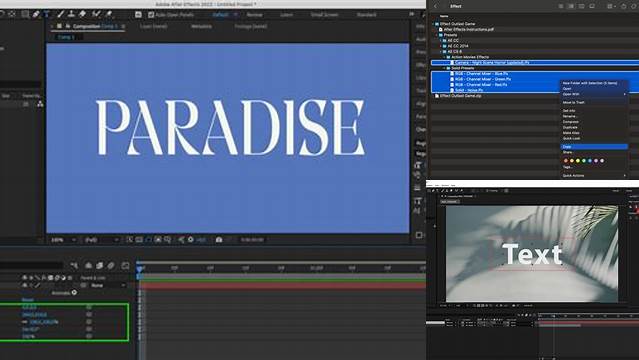
Install Fonts In After Effects: A Simple Guide
Hey guys! Ever downloaded a cool font and wanted to use it in After Effects? It's actually super easy, and this guide will walk you through it step by step. We'll cover everything from finding fonts to getting them up and running in After Effects so you can create awesome motion graphics and animations. So, let's dive in!
1. Finding the Perfect Font for After Effects
Choosing the right font is crucial for your After Effects projects. The perfect font can make your text look professional and polished, and it can also help to convey the mood and tone of your video. There are tons of places to find fonts online, both free and paid, so you've got a lot of options. Websites like Google Fonts, DaFont, and Adobe Fonts are great resources. When searching, think about the style you're going for. A bold, sans-serif font might be perfect for a modern, techy project, while a flowing script font might be better for something more elegant and artistic. It’s all about finding that sweet spot where the font complements your overall design.
Think about the legibility of the font, too. A super fancy font might look cool, but if it’s hard to read, it won’t be effective in your video. Consider the context in which the font will be used. Will it be used for titles, subtitles, or body text? Different fonts work better in different situations. For example, a clean and simple font is usually best for body text, while a more decorative font can be used for titles and headings. Always test out a few different fonts to see how they look in your project before settling on one. This will help you ensure that the font you choose is the best fit for your needs.
Don't be afraid to experiment and try out different fonts. You might be surprised at what you find! The more you explore, the better you'll become at identifying fonts that work well for different types of projects. And remember, the best font is the one that enhances your message and makes your video look its best.
Before you download anything, always check the website's reputation. Look for reviews or ratings, and be wary of sites that look unprofessional or ask for excessive personal information. If a deal seems too good to be true, it probably is. It's better to be safe than sorry when it comes to downloading files from the internet. Also, make sure your antivirus software is up to date. This will add an extra layer of protection against any malicious software that might sneak in with your font download. Think of it like having a security guard for your computer – they’re there to keep the bad guys out.
Another good practice is to scan the downloaded font file with your antivirus software before you install it. This will help you catch any potential threats before they can do any damage. Most antivirus programs have a right-click option to scan files, so it’s a quick and easy step to take. By taking these precautions, you can enjoy a vast selection of fonts without worrying about compromising your computer’s security. Safe downloading habits are key to a smooth and worry-free font-using experience in After Effects.
4. Locating Downloaded Fonts on Your Computer for After Effects
Alright, you’ve downloaded your font – awesome! Now, where did it go? Finding your downloaded fonts is the first step to getting them installed in After Effects. Most browsers will save your downloads to a default folder, which is usually the “Downloads” folder. But sometimes, you might have changed this setting, or the file might have ended up somewhere unexpected. Don't worry, we'll figure it out. First, check your browser’s download history. This is usually accessible from the browser menu or by pressing Ctrl+J (Windows) or Cmd+J (Mac). Your download history will show you the files you’ve downloaded and the location where they were saved.
Another helpful tip is to use the font preview feature. After Effects shows a small preview of each font in the list, so you can get a visual idea of what it looks like. This can help you quickly identify the font you’re looking for, especially if you’re familiar with its appearance. If you’ve recently installed the font, it should be near the top of the list, as After Effects usually adds new fonts to the end of the list after it’s been sorted alphabetically. Once you find your font, simply click on it to select it, and it will be applied to your text layer. You’re now ready to start creating awesome text animations with your new font!